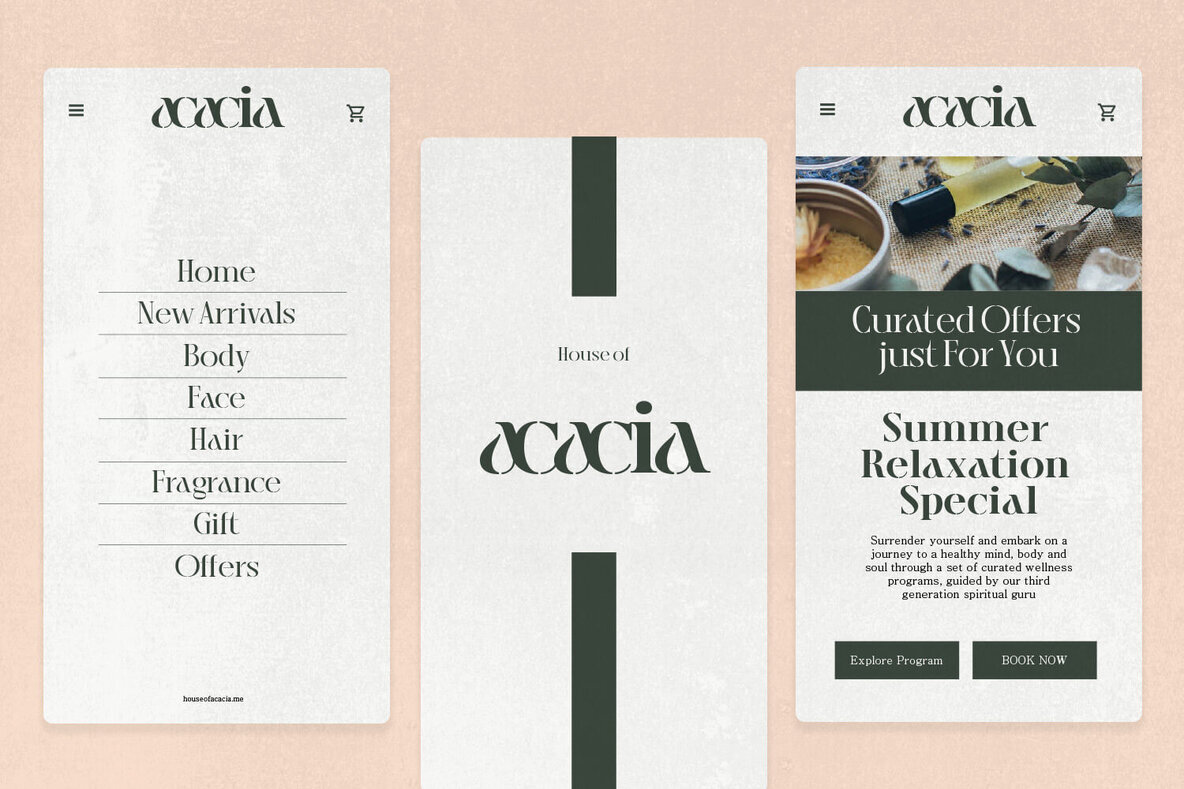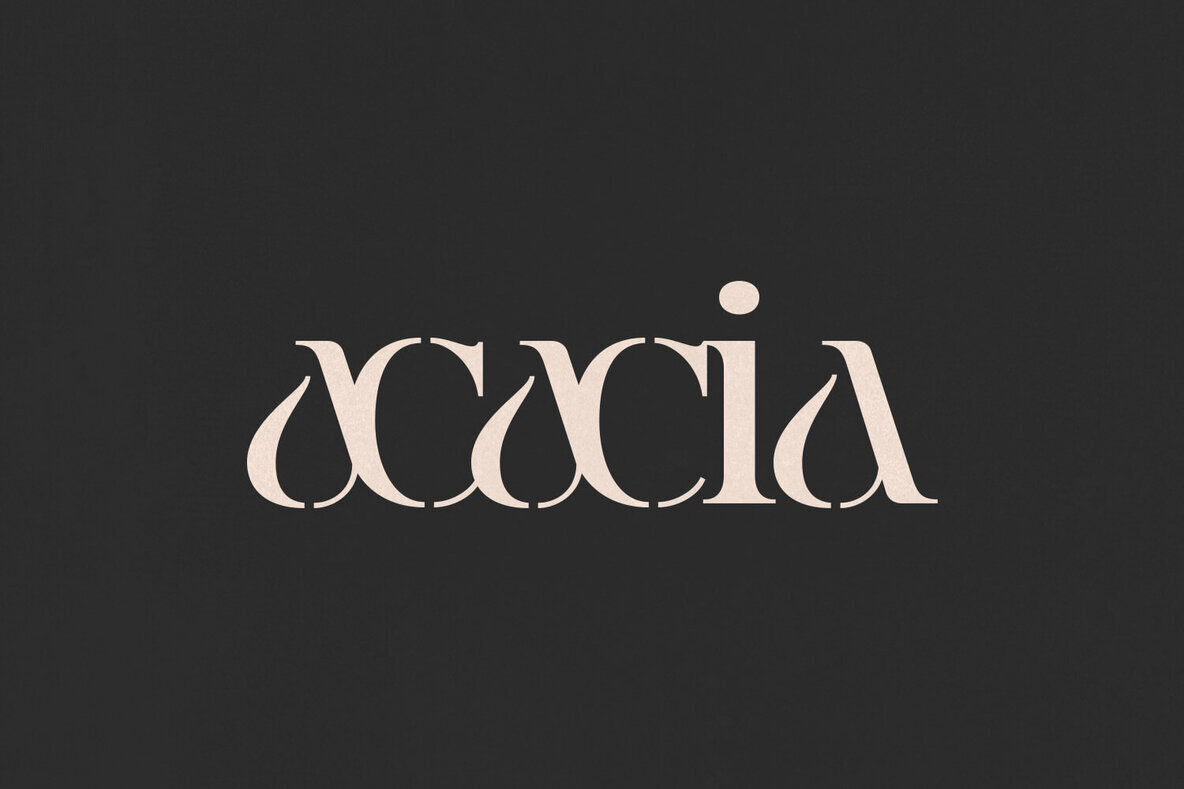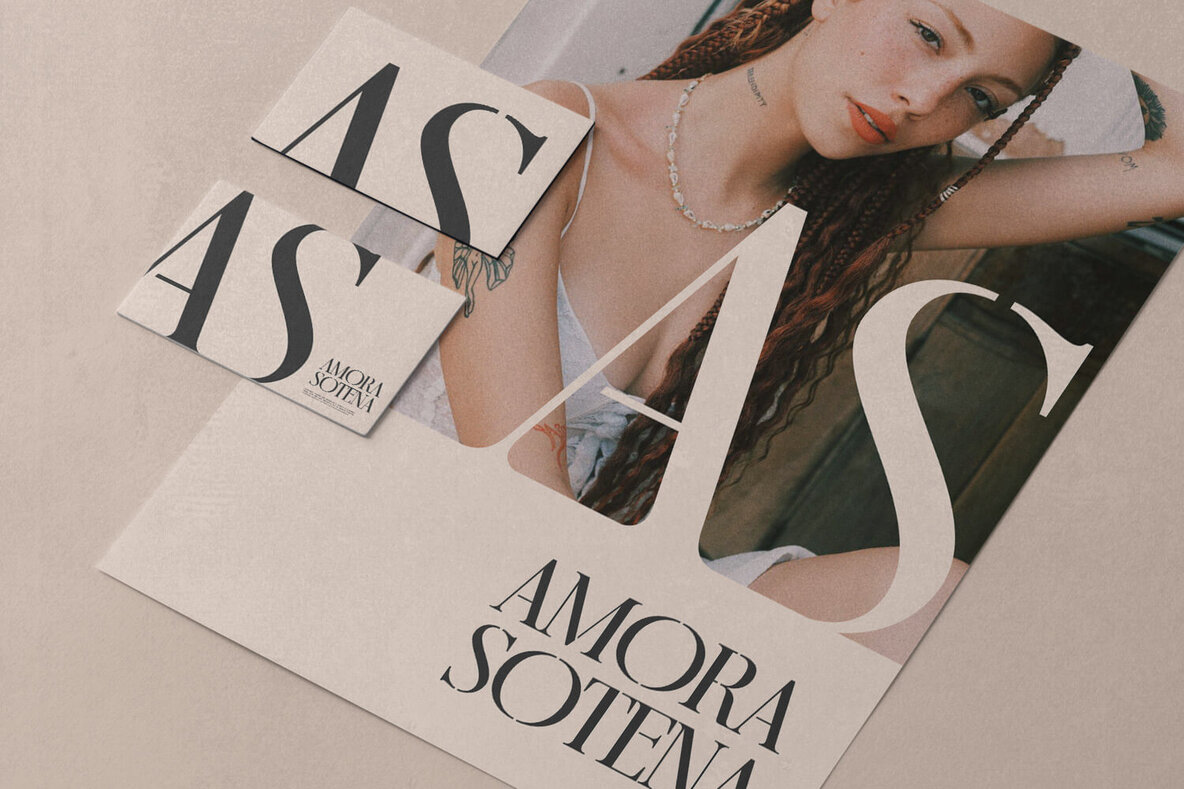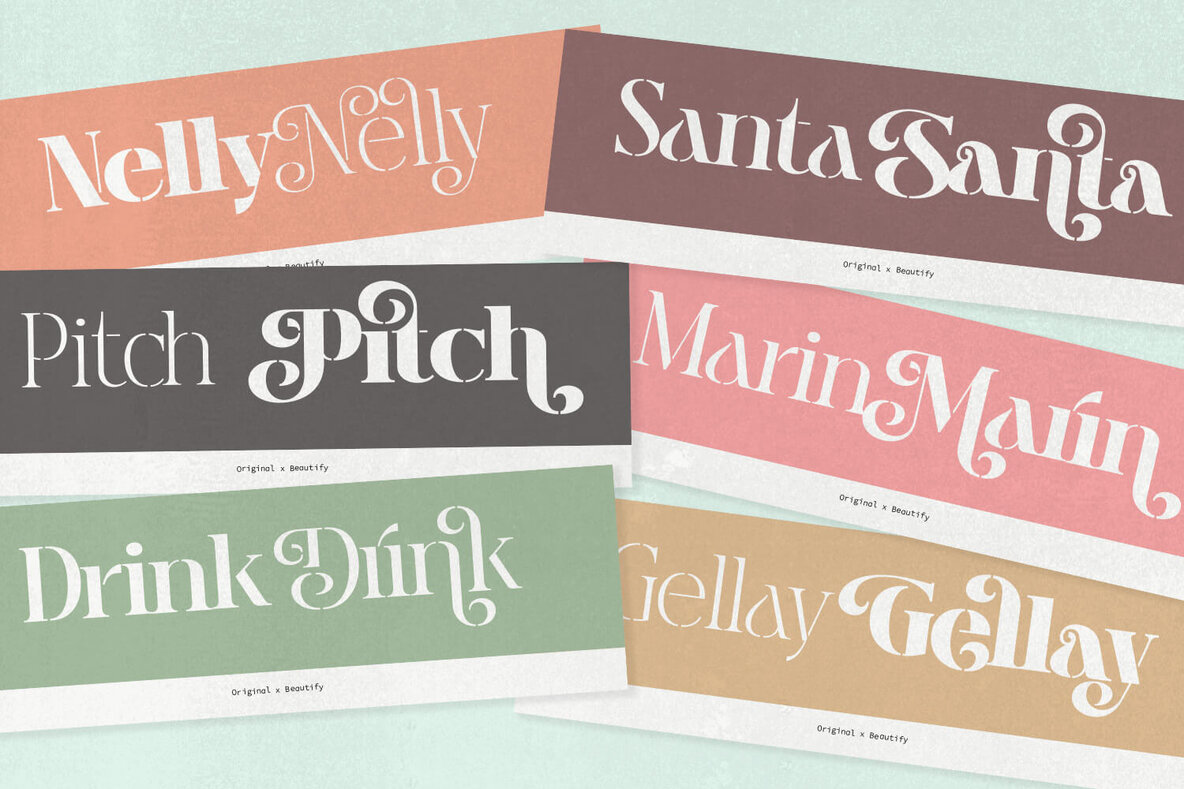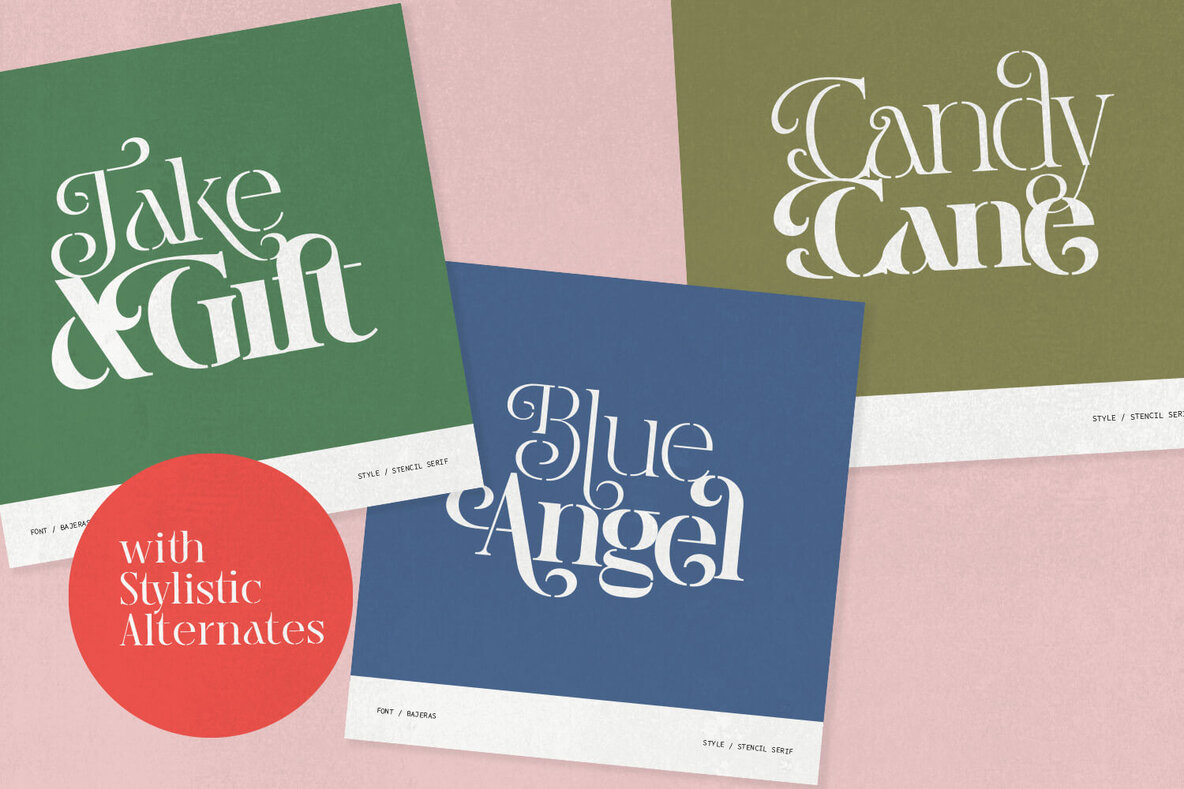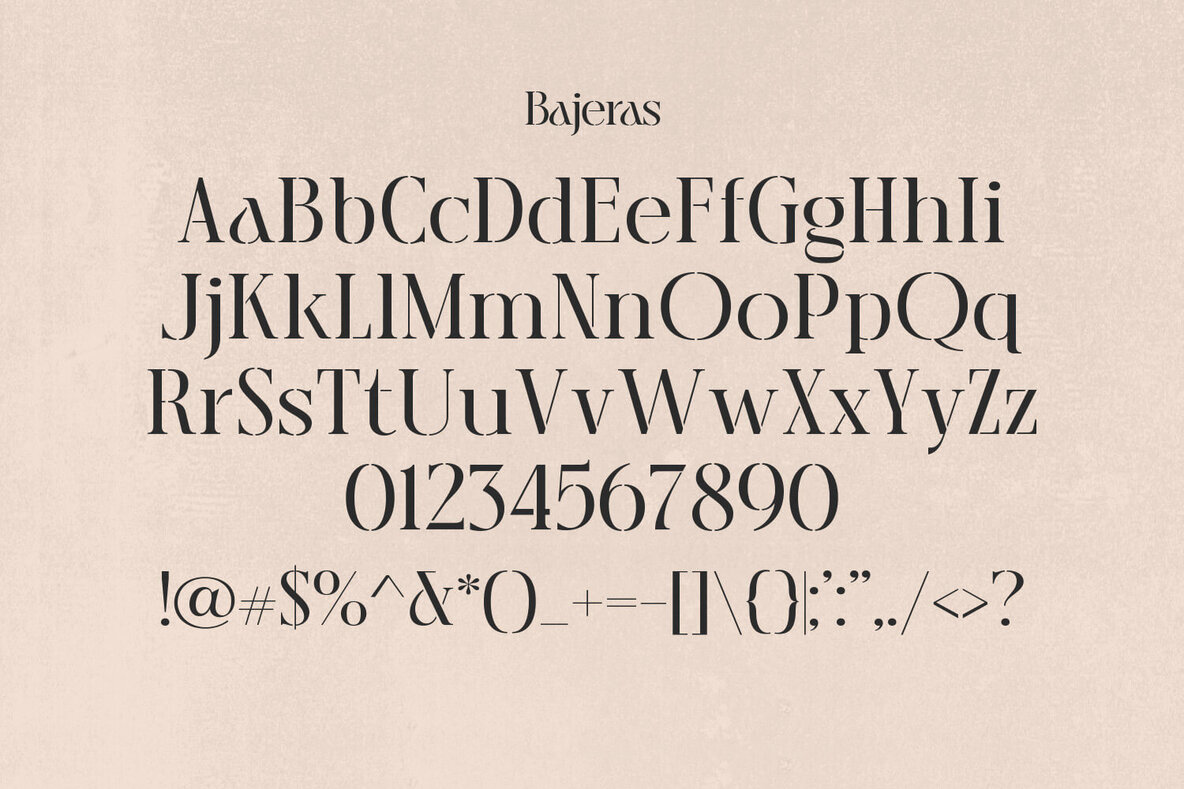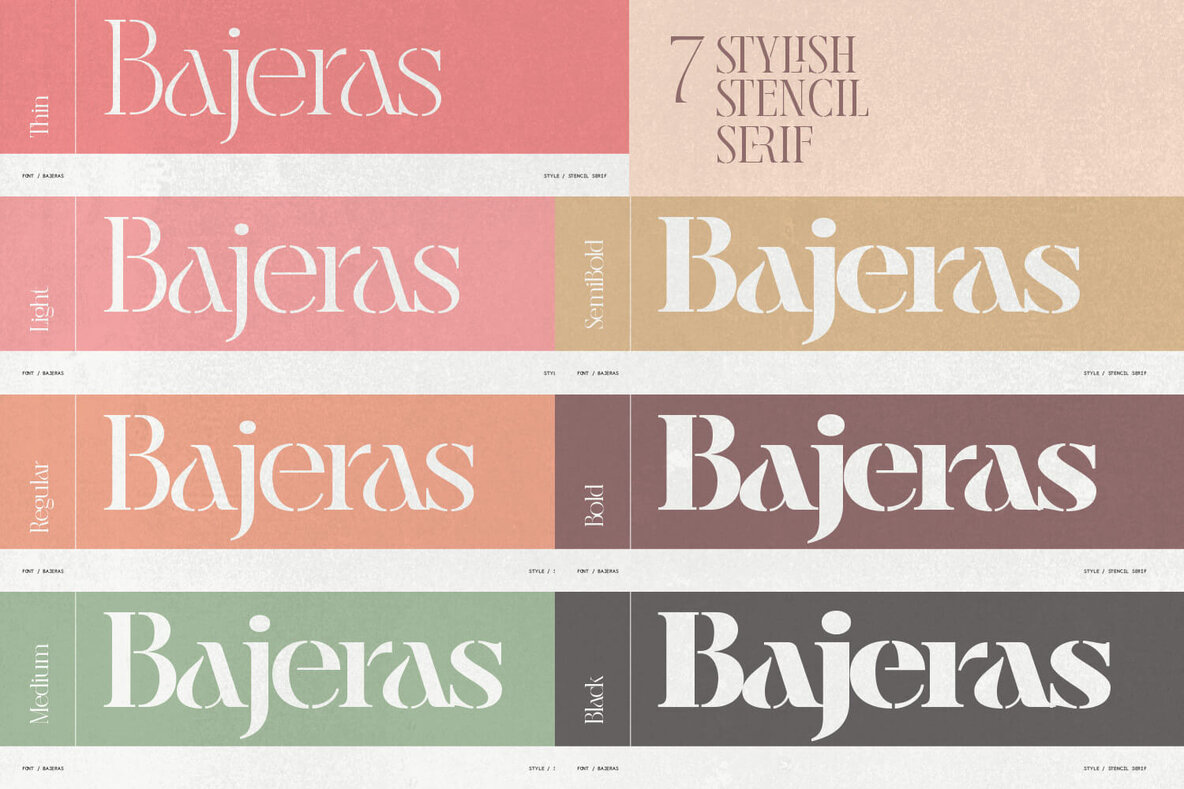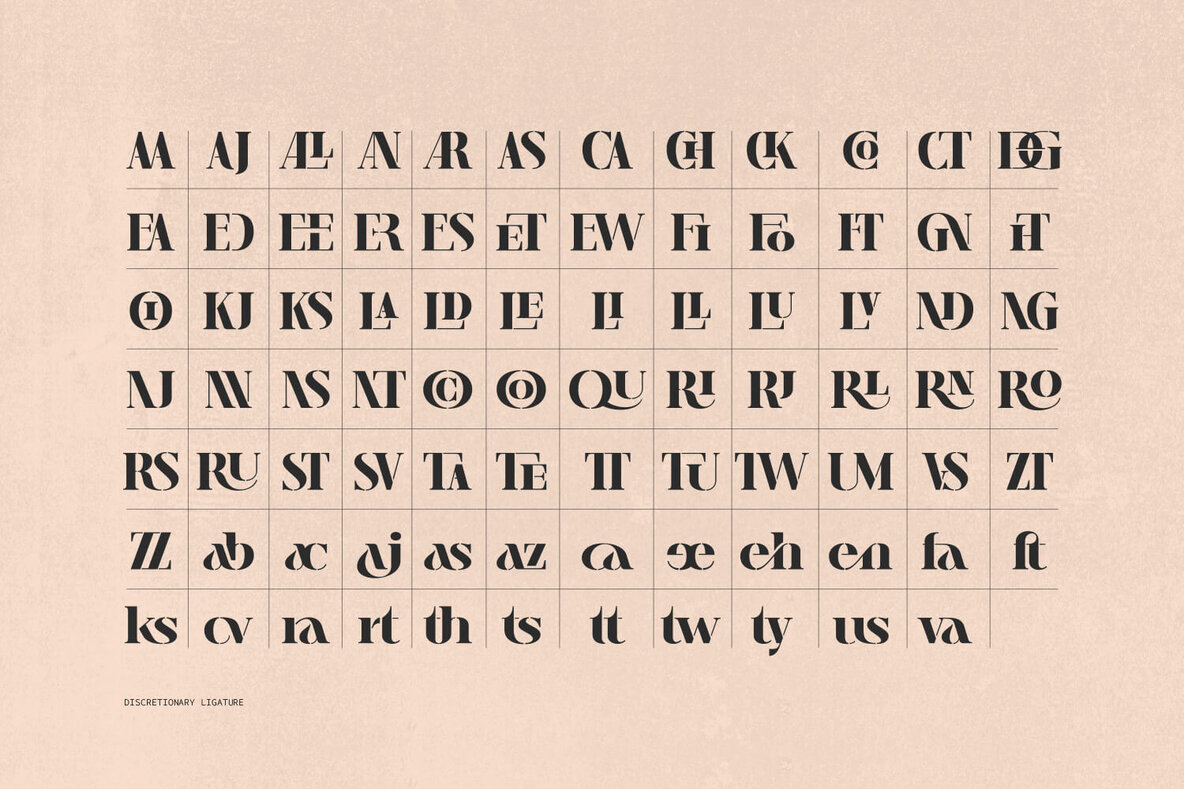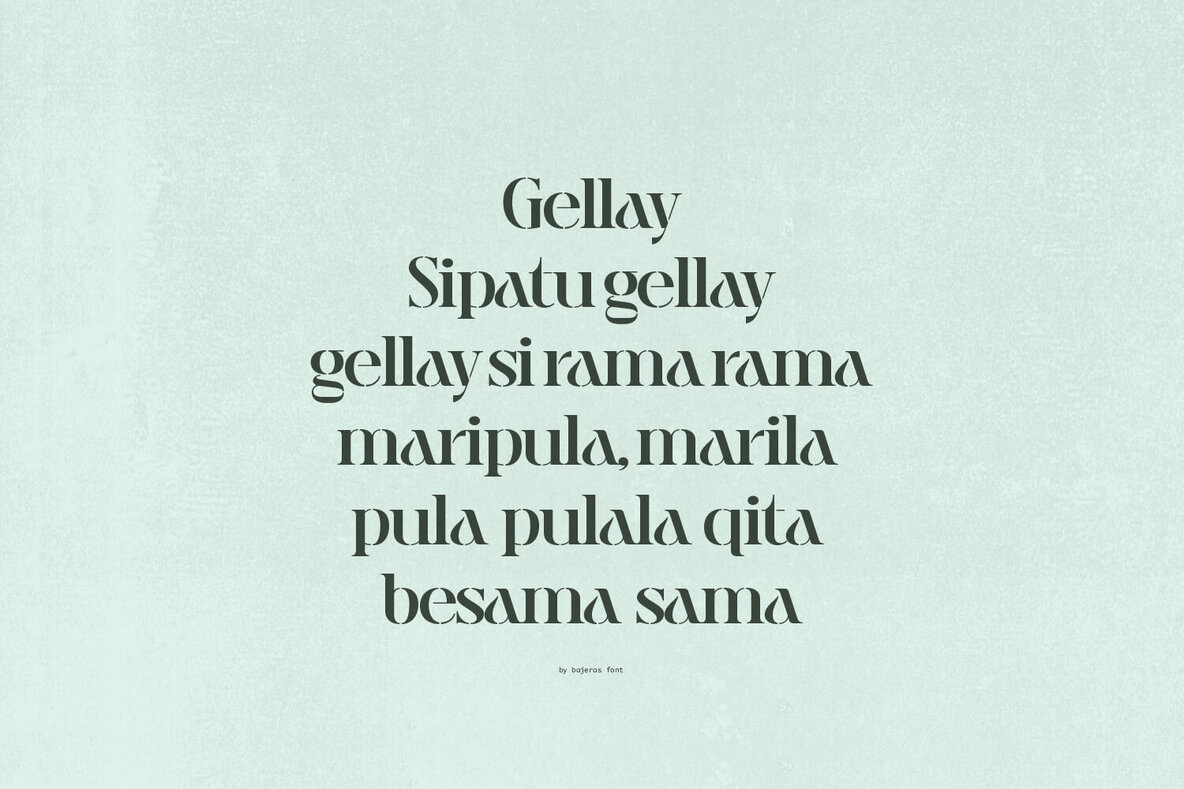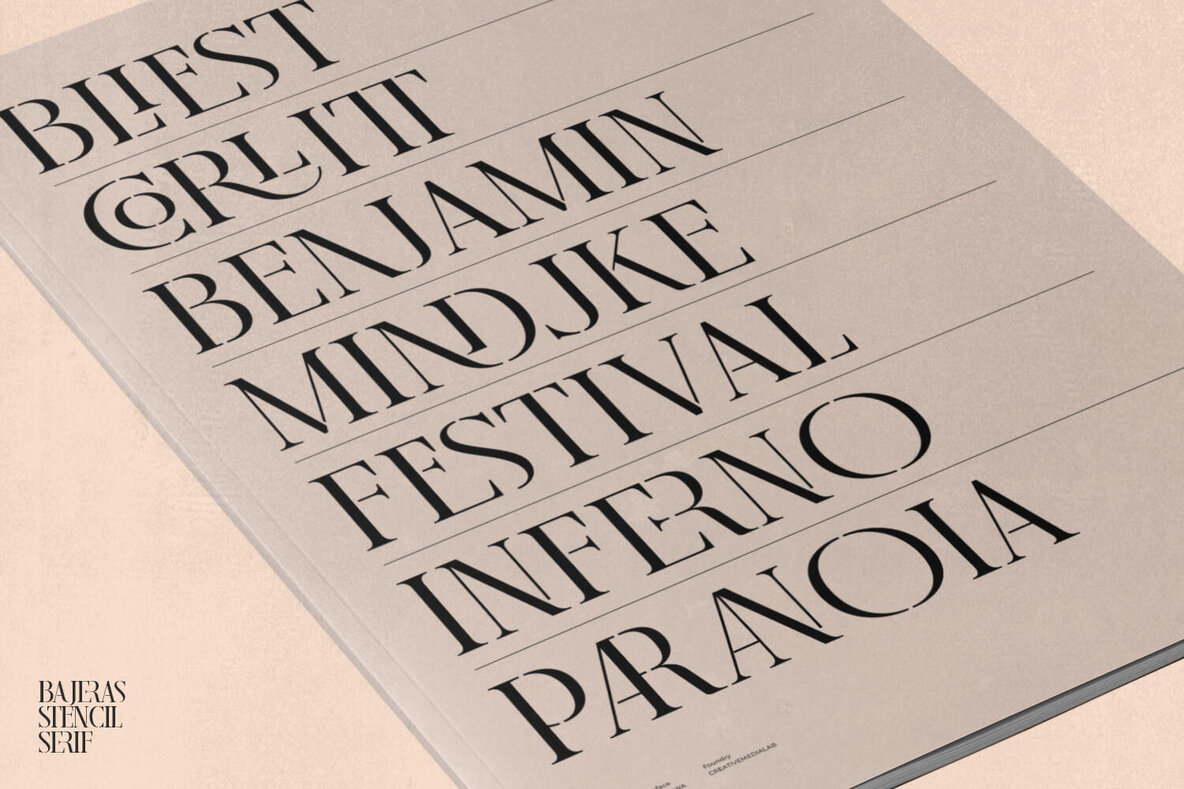
Bajeras Font
Bajeras is a sophisticated stencil typeface that draws inspiration from military stenciling techniques used for creating signs with spray paint. This modern font artfully blends boldness with simplicity by incorporating subtle curves into alternate letters, offering a design that is both classic and elegant. Ideal for contemporary fashion designs, Bajeras presents versatility through its rich collection of ligatures and alternates, allowing for a personalized touch in every creation.
This typeface features an extensive range of seven thicknesses, from thin to robust black, catering to various design needs. Whether you're crafting logos, designing for luxurious or classic brands, or exploring fashion-related projects, Bajeras is a fitting choice that brings an air of sophistication and timeless appeal to your work.